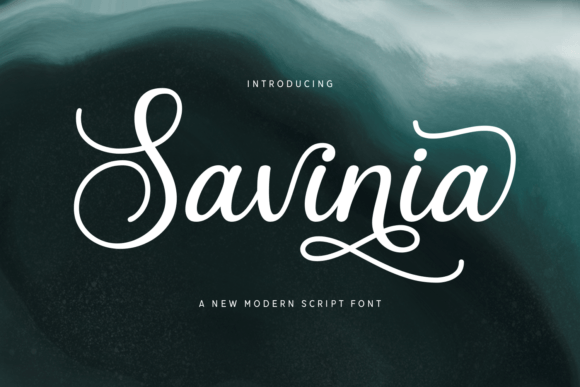
Savinia Font: A Beautiful and Bold Script Font for Creative Projects
Savinia font is a stunning script font that has gained popularity among designers and artists for its strong, stylish look. Its smooth curves and modern design make it an ideal choice for adding a creative touch to any project. Whether you’re looking to create a logo, headline, or any design that needs an eye-catching, dynamic feel, Savinia font is the perfect choice.
What is Savinia Font?
Savinia font is a script font that features smooth, flowing curves and a modern design. It has a strong, bold look that makes it perfect for designs that need to stand out. The font is designed to be versatile and can be used for a variety of projects, from logos and headlines to posters and social media graphics.
Key Features of Savinia Font
- Beautiful and Bold Design: Savinia font features a beautiful and bold design that makes it perfect for designs that need to stand out.
- Smooth Curves: The font features smooth, flowing curves that give it a modern and stylish look.
- Versatile: Savinia font is versatile and can be used for a variety of projects, from logos and headlines to posters and social media graphics.
- Easy to Read: Despite its bold design, Savinia font is easy to read, making it perfect for designs that need to communicate a message.
Uses of Savinia Font
Savinia font is perfect for a variety of design projects, including:
- Logos: Savinia font is perfect for creating logos that need to stand out. Its bold design and smooth curves make it a great choice for companies that want to make a statement.
- Headlines: The font is also great for headlines, whether you’re creating a poster, social media graphic, or website.
- Posters: Savinia font is perfect for creating posters that need to grab attention. Its bold design and smooth curves make it a great choice for promoting events, products, or services.
- Social Media Graphics: The font is also great for social media graphics, whether you’re creating a Facebook post, Instagram story, or Twitter header.
Benefits of Using Savinia Font
There are several benefits to using Savinia font, including:
- Unique Design: Savinia font has a unique design that sets it apart from other fonts. Its smooth curves and bold design make it a great choice for designers who want to create something different.
- High-Quality: Savinia font is a high-quality font that is designed to look great on any device.
Tips for Using Savinia Font
Here are some tips for using Savinia font:
- Use it Sparingly: Savinia font is a bold font, so it’s best to use it sparingly. Use it for headlines or titles, and a simpler font for body text.
- Experiment with Colors: The font looks great in a variety of colors, so experiment with different colors to find the one that works best for your design.
- Pair it with Other Fonts: Savinia font looks great when paired with other fonts. Experiment with different font combinations to find the one that works best for your design.
Savinia font is a beautiful and bold script font that is perfect for adding a creative touch to any project. Its smooth curves and modern design make it a great choice for designers and artists who want to create something unique and eye-catching. With its versatility, ease of use, and high-quality design, Savinia font is a great addition to any design project.
FAQs about Savinia Font
- What is Savinia font? Savinia font is a script font that features smooth, flowing curves and a modern design.
- Is Savinia font easy to read? Yes, Savinia font is easy to read, making it perfect for designs that need to communicate a message.